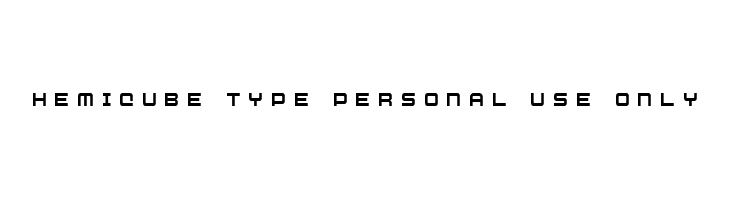
A geometric, futuristic font with bold, cube-like uppercase letters.
A modern, geometric font with a monospaced appearance and a futuristic aesthetic.